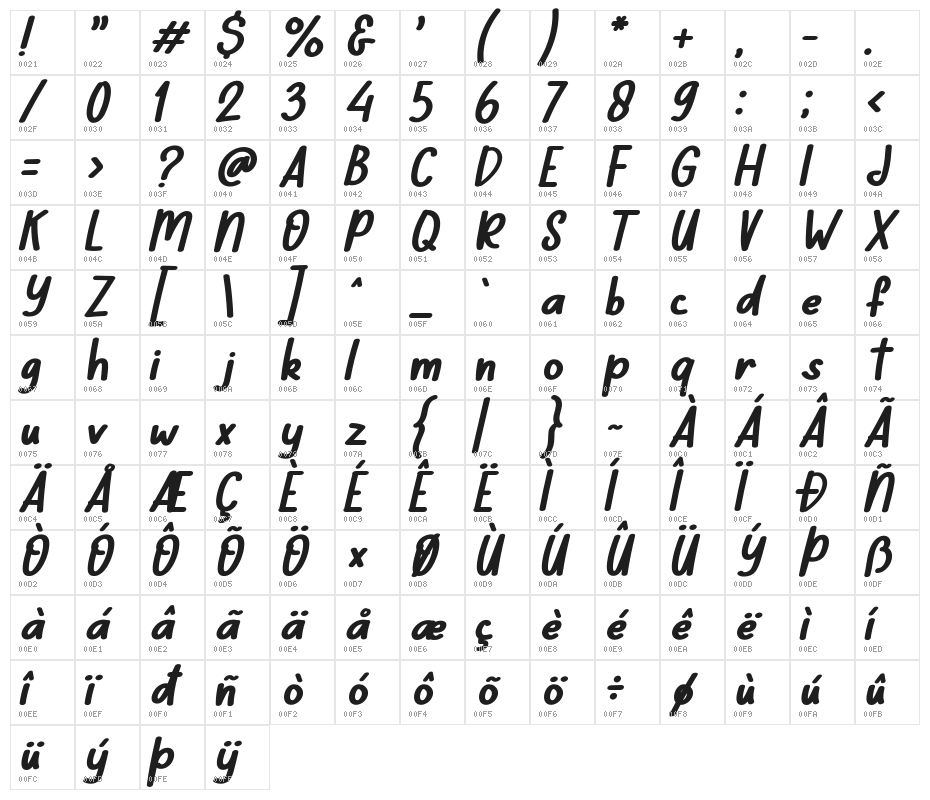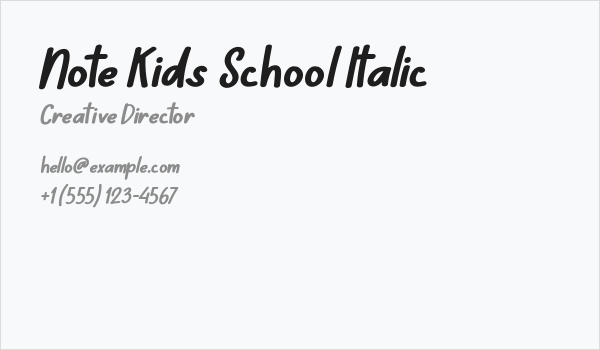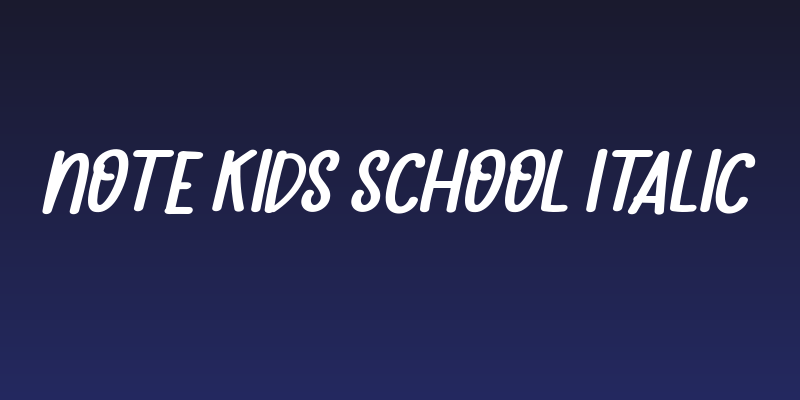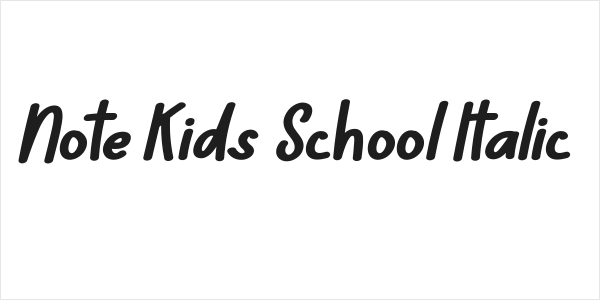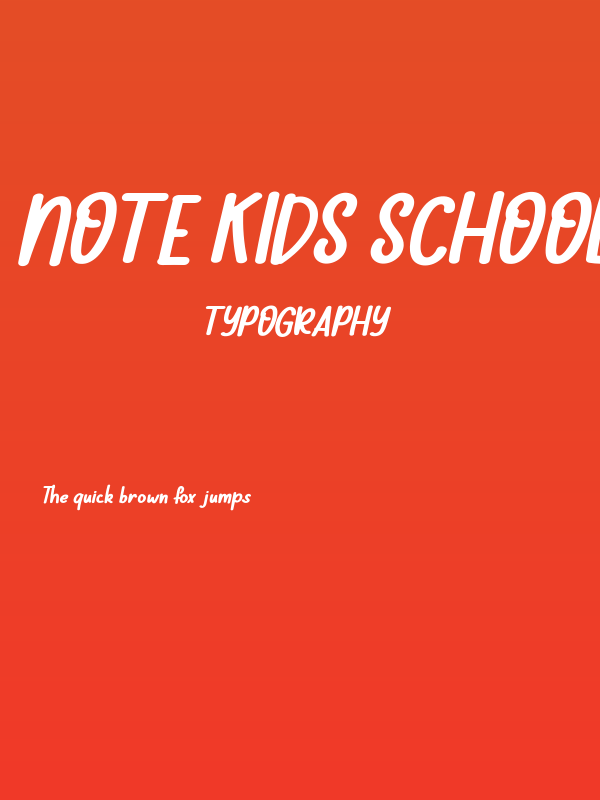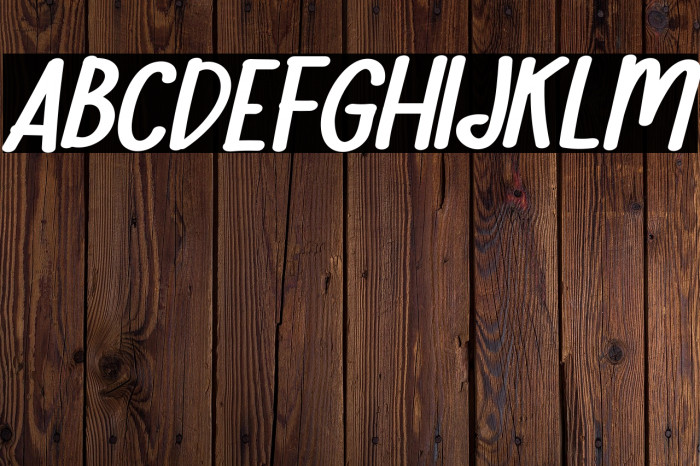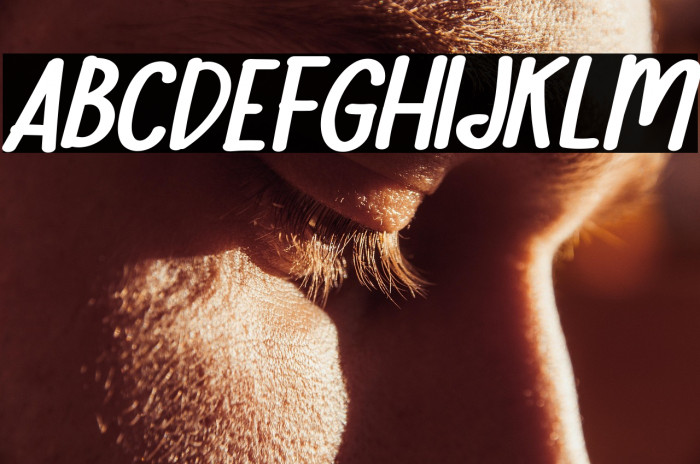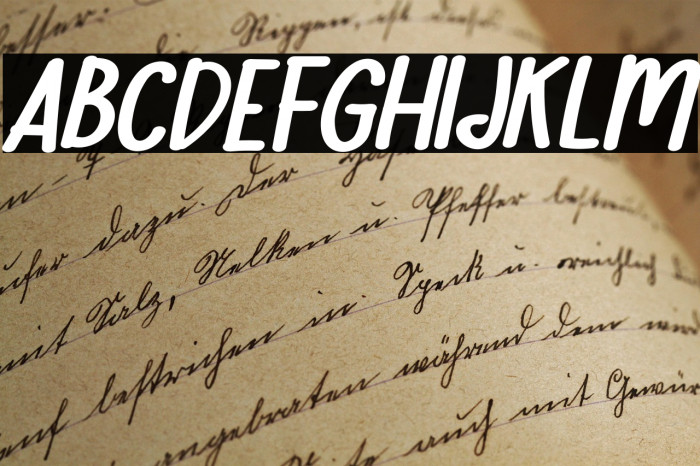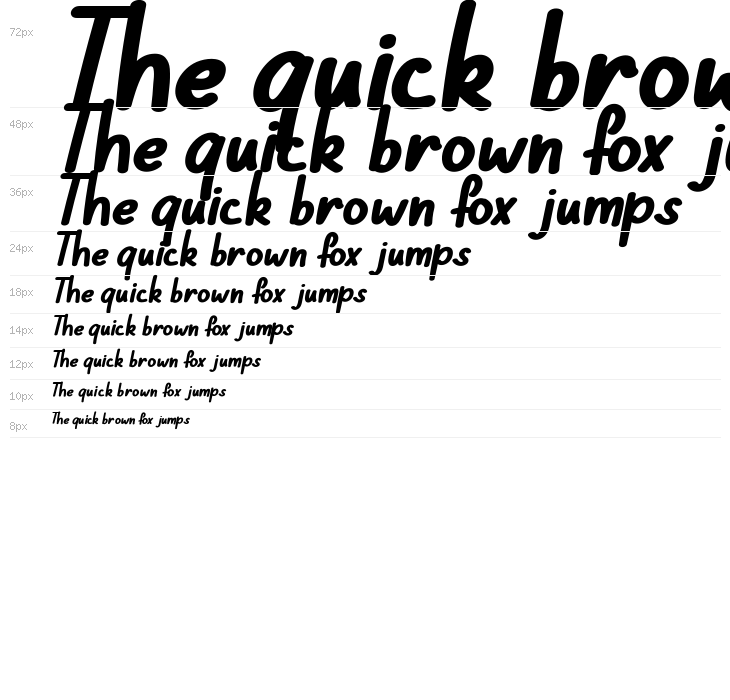
Note Kids School Italic Font
Note Kids School Italic Description
This playful and energetic font features a handwritten style with a slight slant, giving it an informal and friendly appearance. The letters are bold and rounded, with smooth curves and a consistent stroke width that adds to its approachable feel. The uppercase and lowercase letters maintain a cohesive look, while the numerals and special characters are designed to match the overall style. This font is ideal for projects that require a personal touch, such as children's books, educational materials, or playful branding. Its readability and charm make it suitable for both print and digital media.
| Use Case | Headlines, Logos, Informal text |
| Proposed Projects | Children's books, educational materials, playful branding, greeting cards. |